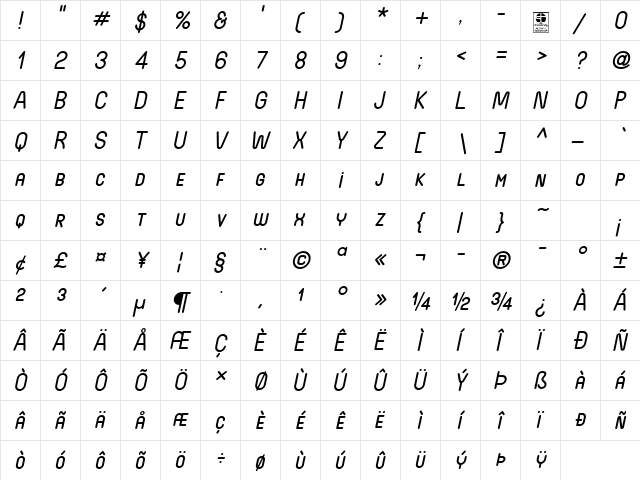
Wida Round SmallCaps Demo Italic Font Preview
Design Context for Wida Round SmallCaps Demo Typeface
Wida Round SmallCaps Demo softens its letterforms with rounded terminals, giving it an approachable, friendly quality that works well in consumer-facing and digital contexts. The slanted form adds forward momentum and visual energy.
A natural fit for tech startups, health and wellness brands, children's products, and friendly consumer apps.
Font Pairing: Pairs well with a rounded or humanist sans for body copy, maintaining the friendly tone without relying on Wida Round SmallCaps Demo to carry extended reading.
Pro Tip: Pair Wida Round SmallCaps Demo with a geometric sans for a balanced system — the rounded softness works as a warm counterpoint to harder-edged companions.